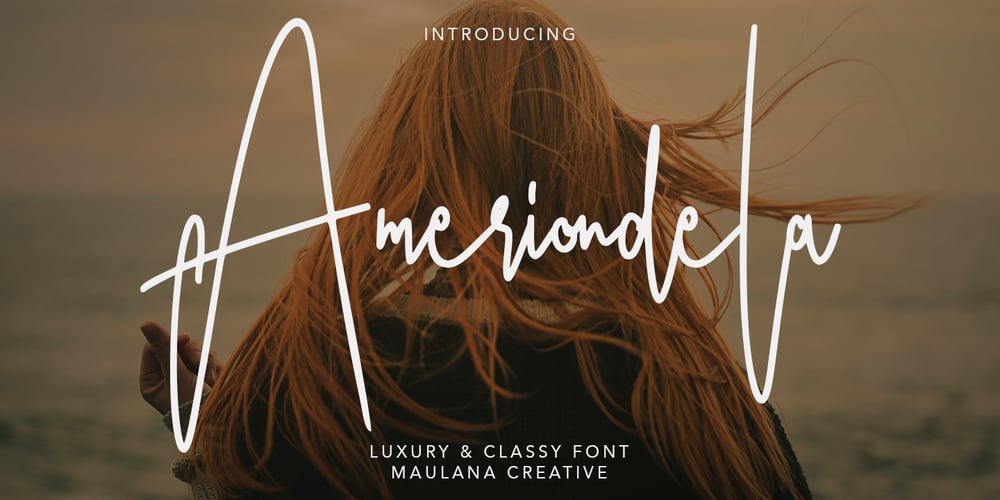
Ameriondela Font Family was designed by Gilang Maulana and published by Maulana Creative. Ameriondela contains 1 styles and family package options. Give your designs an authentic handcrafted feel. “Ameriondela” is perfectly suited to stationery, logos and much more.Thanks for Watching!